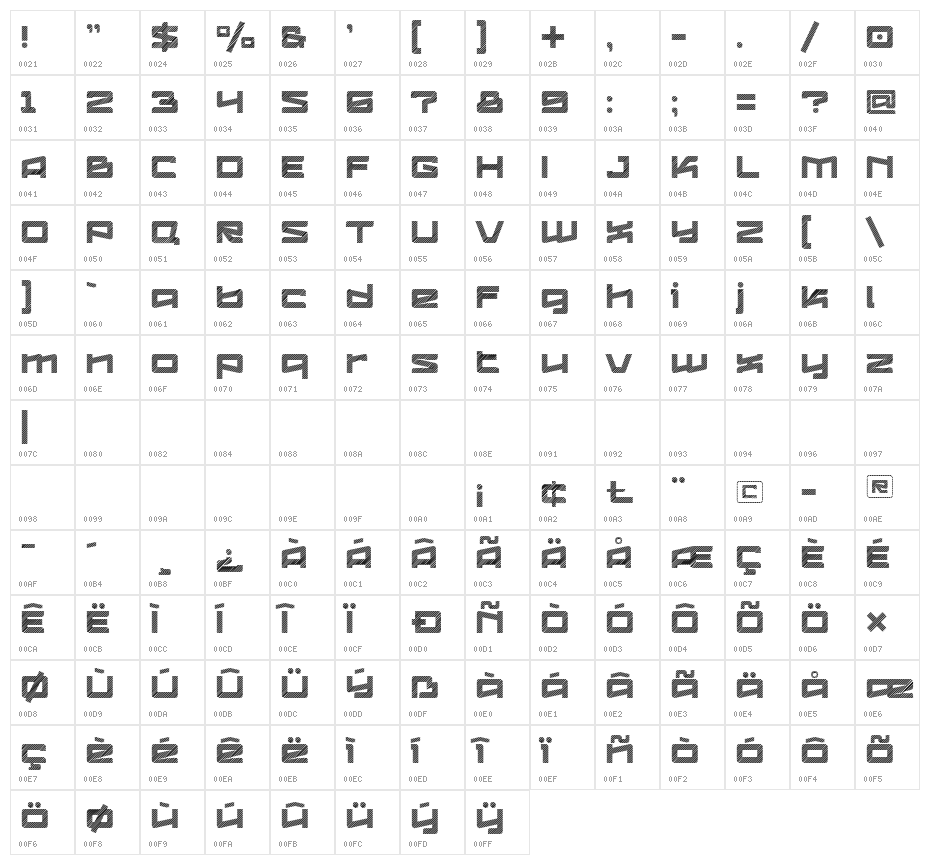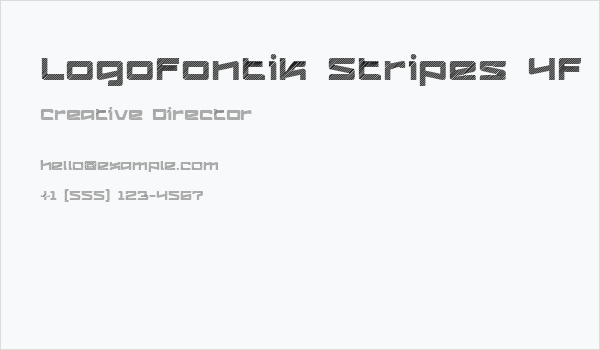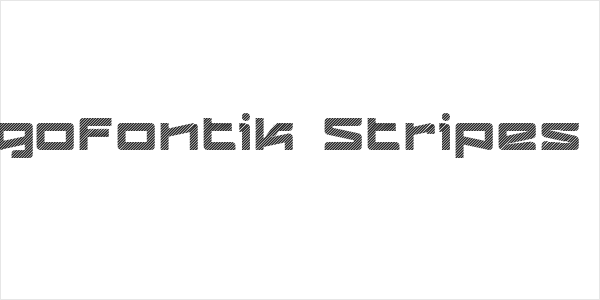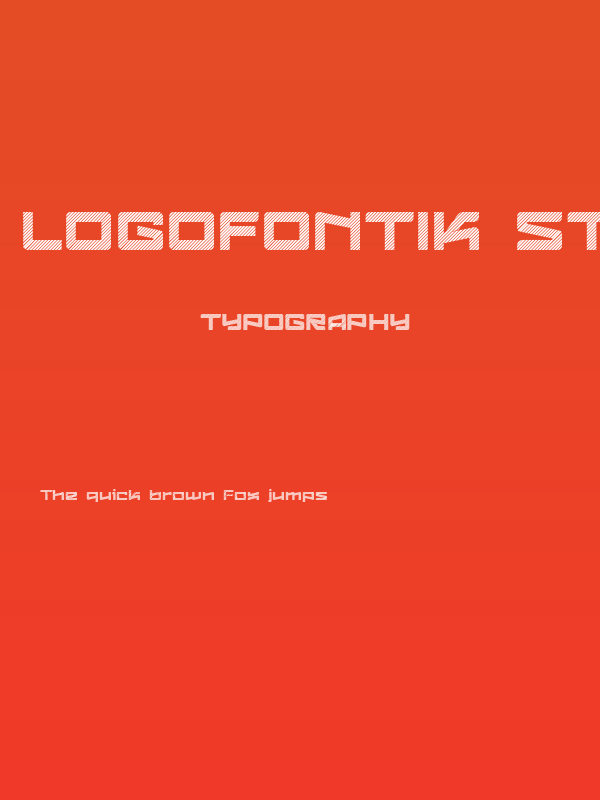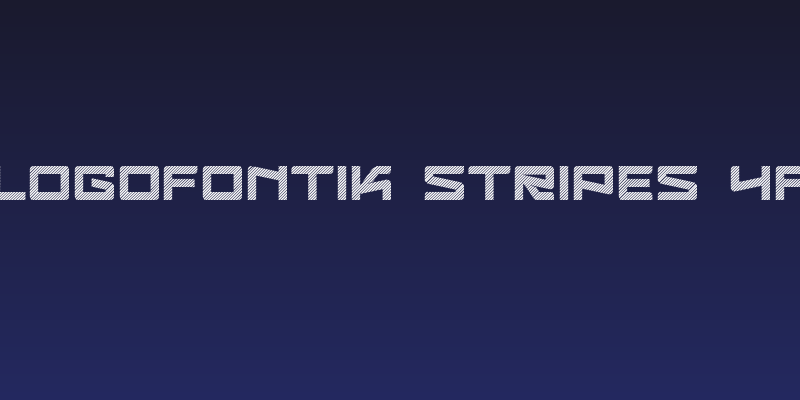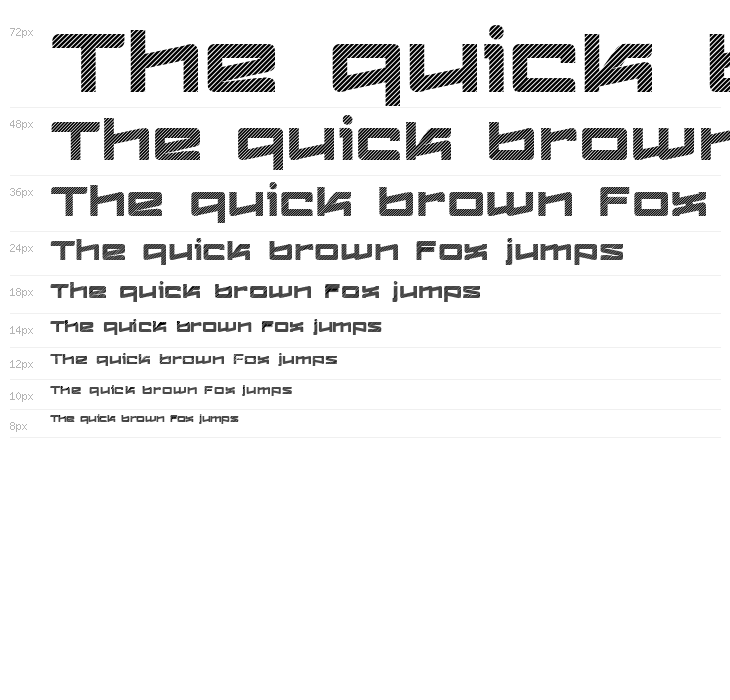
Logofontik Stripes 4F Font
Logofontik Stripes 4F Description
This font features a bold, modern design with a unique striped pattern running diagonally across each character. The uppercase and lowercase letters maintain a consistent geometric structure, giving the font a cohesive and contemporary look. The numbers and special characters follow the same design principles, ensuring uniformity across all elements. The font's distinct style makes it ideal for eye-catching designs, where a strong visual impact is desired. Its boldness and decorative elements make it suitable for projects that require a modern and edgy aesthetic.
| Proposed Projects | Ideal for branding, logos, posters, and any design requiring a striking, modern aesthetic. |